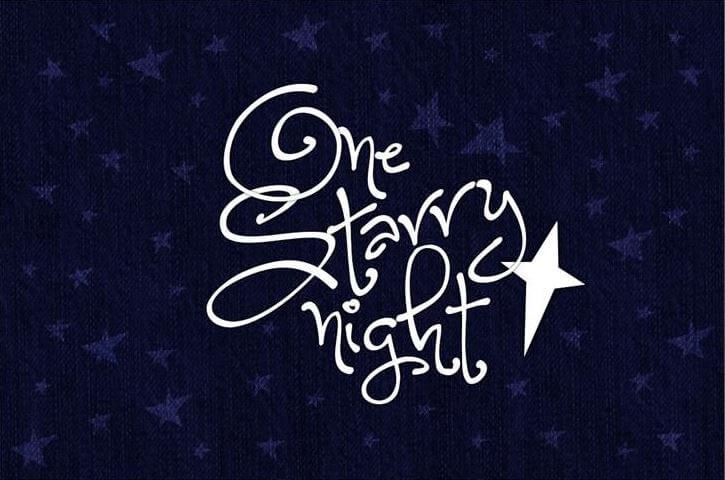
Starfish Font
The Starfish Font is a unique font in its own category, available in both OpenType and TrueType formats. The script font was designed by Francis John, who initially introduced the Gotham font through his studio.
That clothier became inspired by way of manner of marine species the starfish for developing this wonderful font.
Style Of Starfish Font